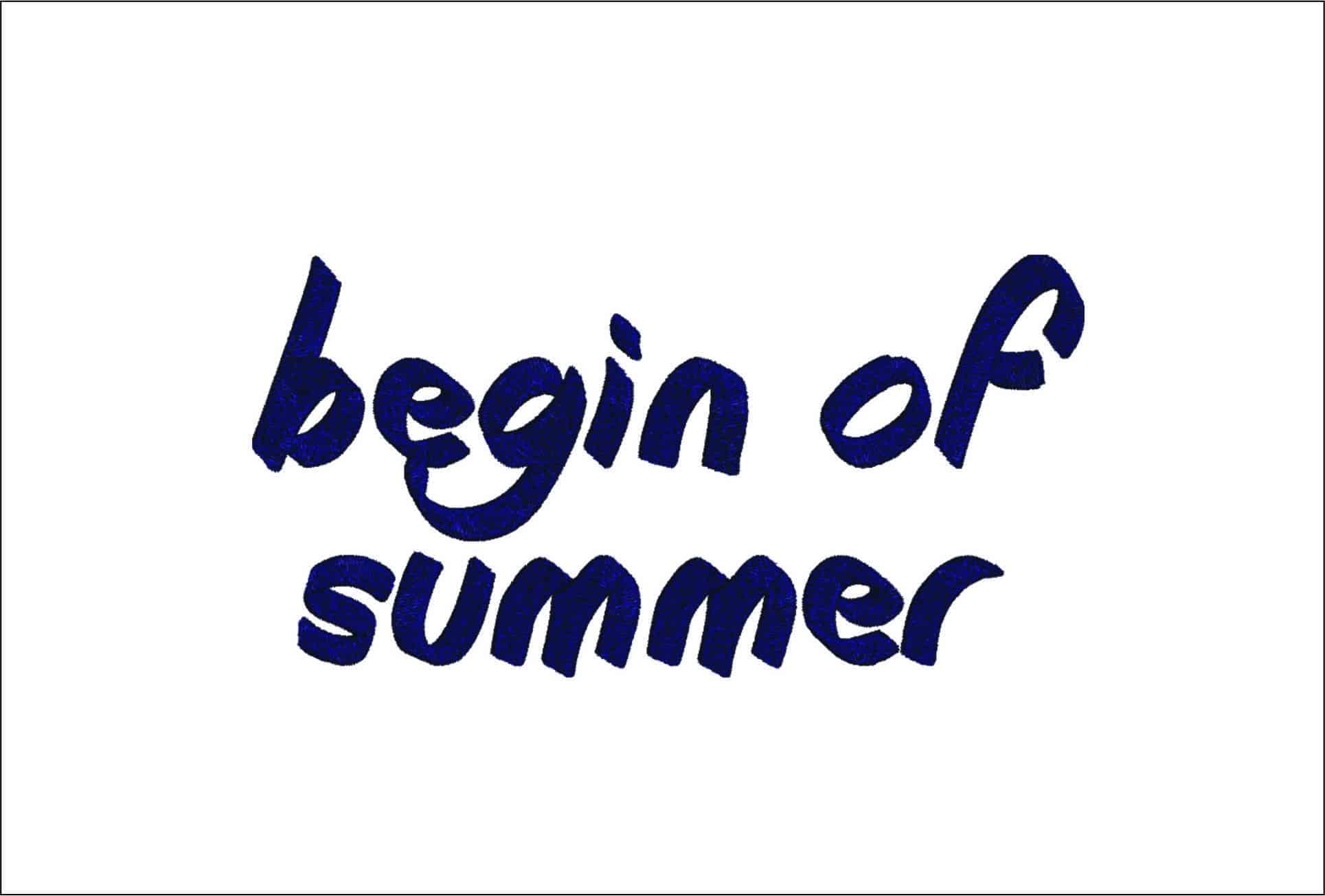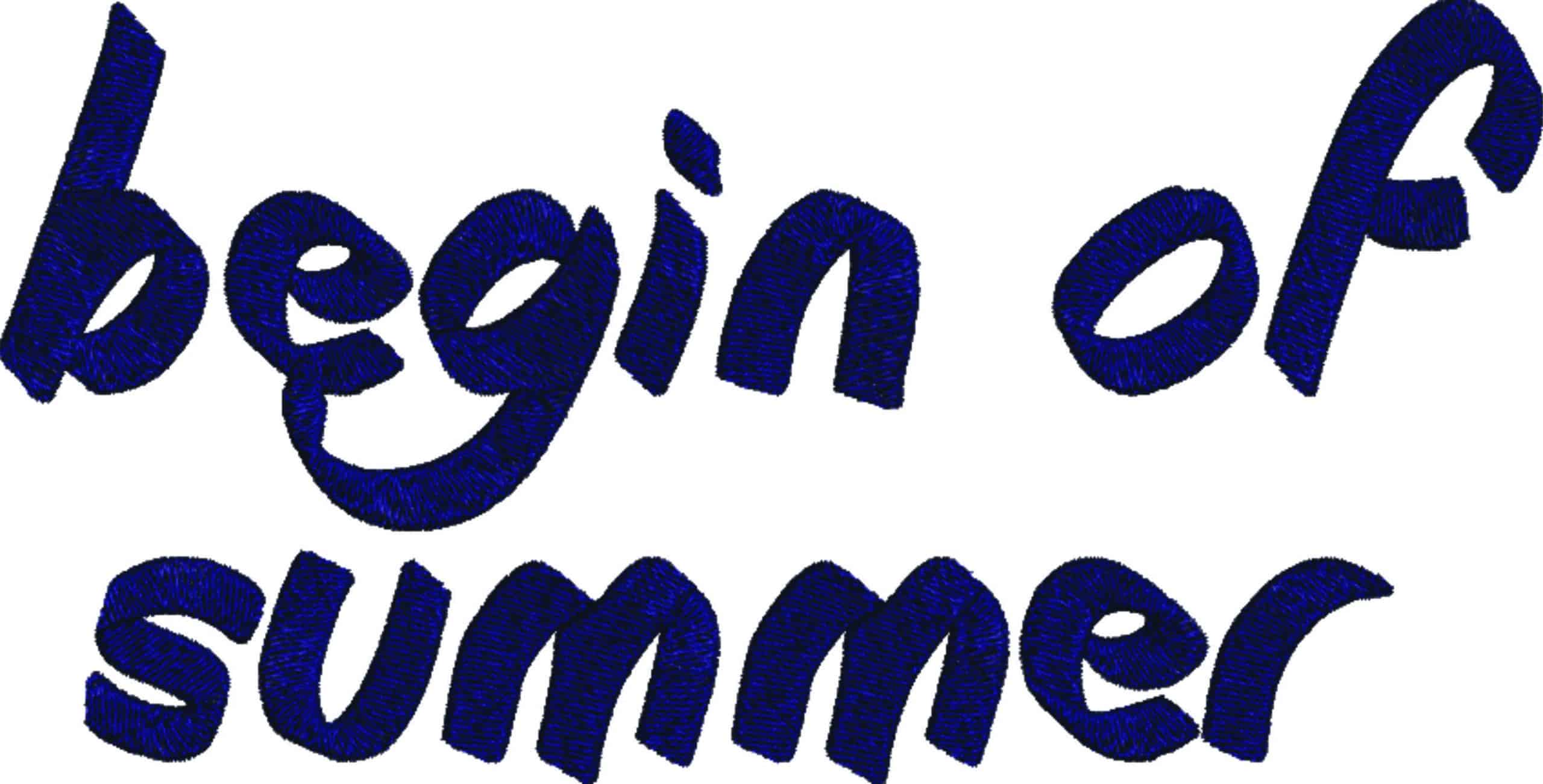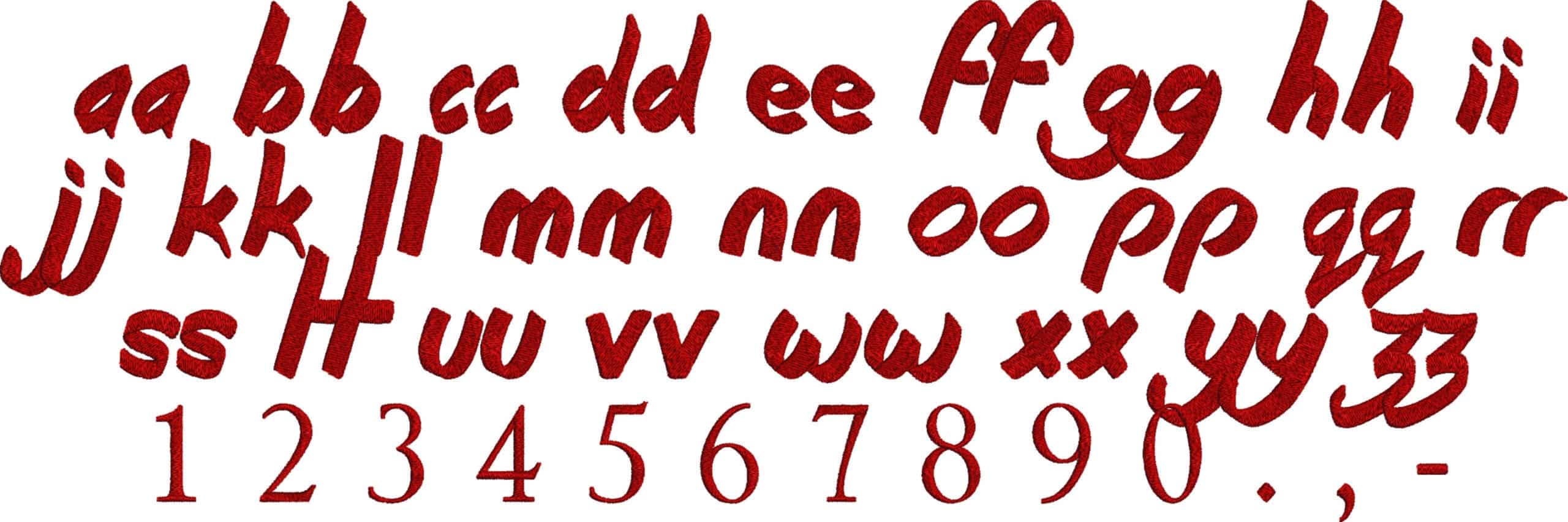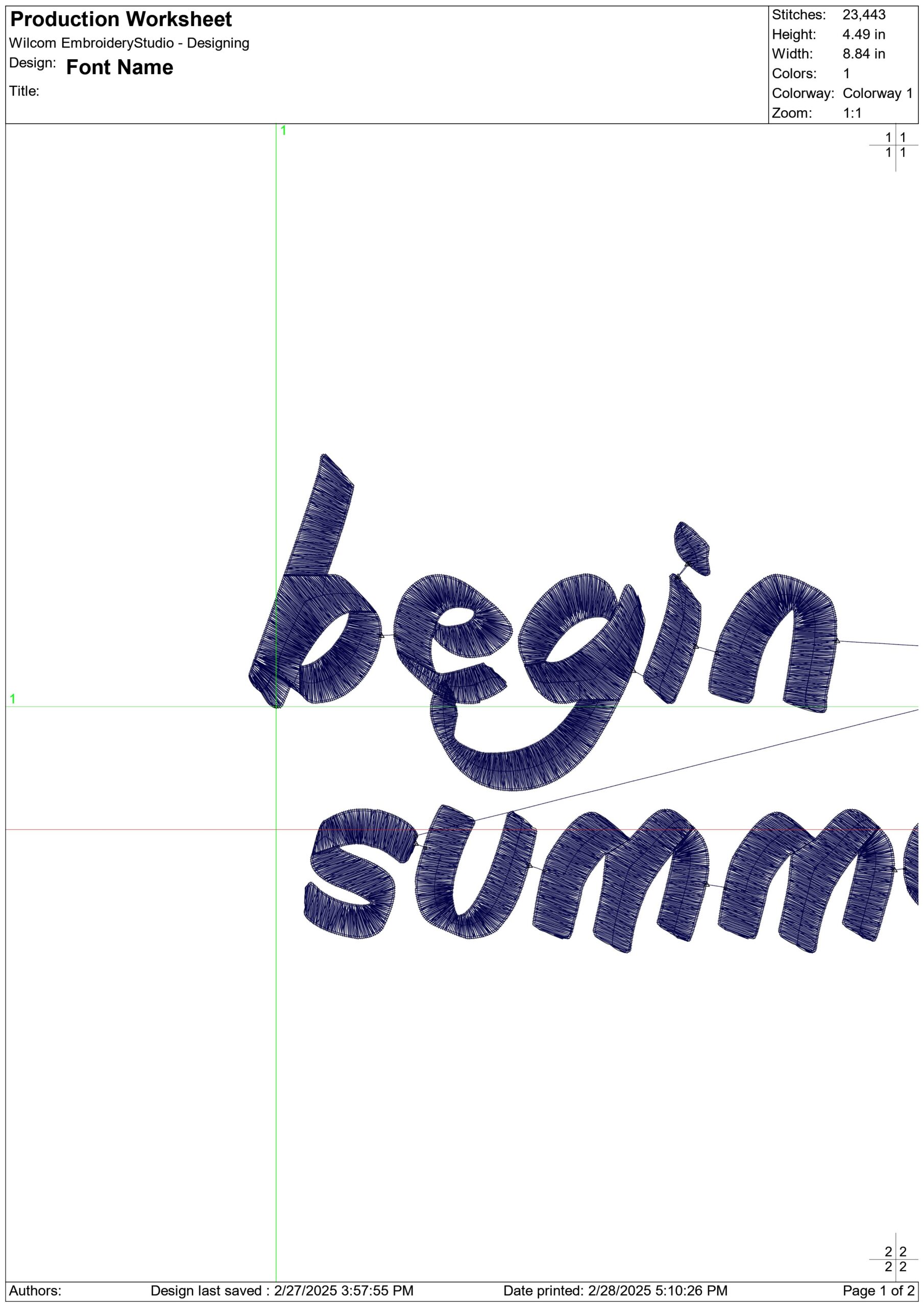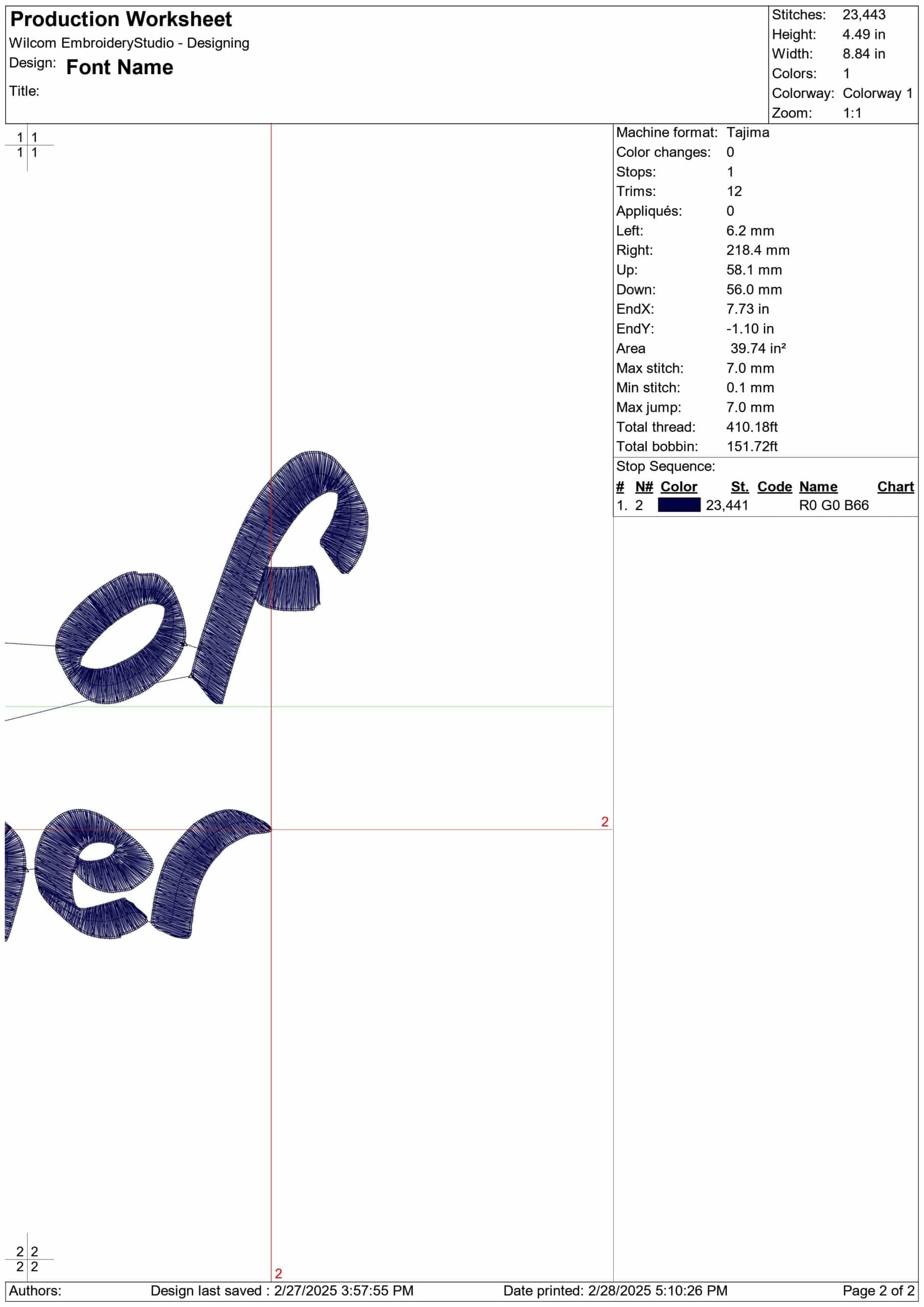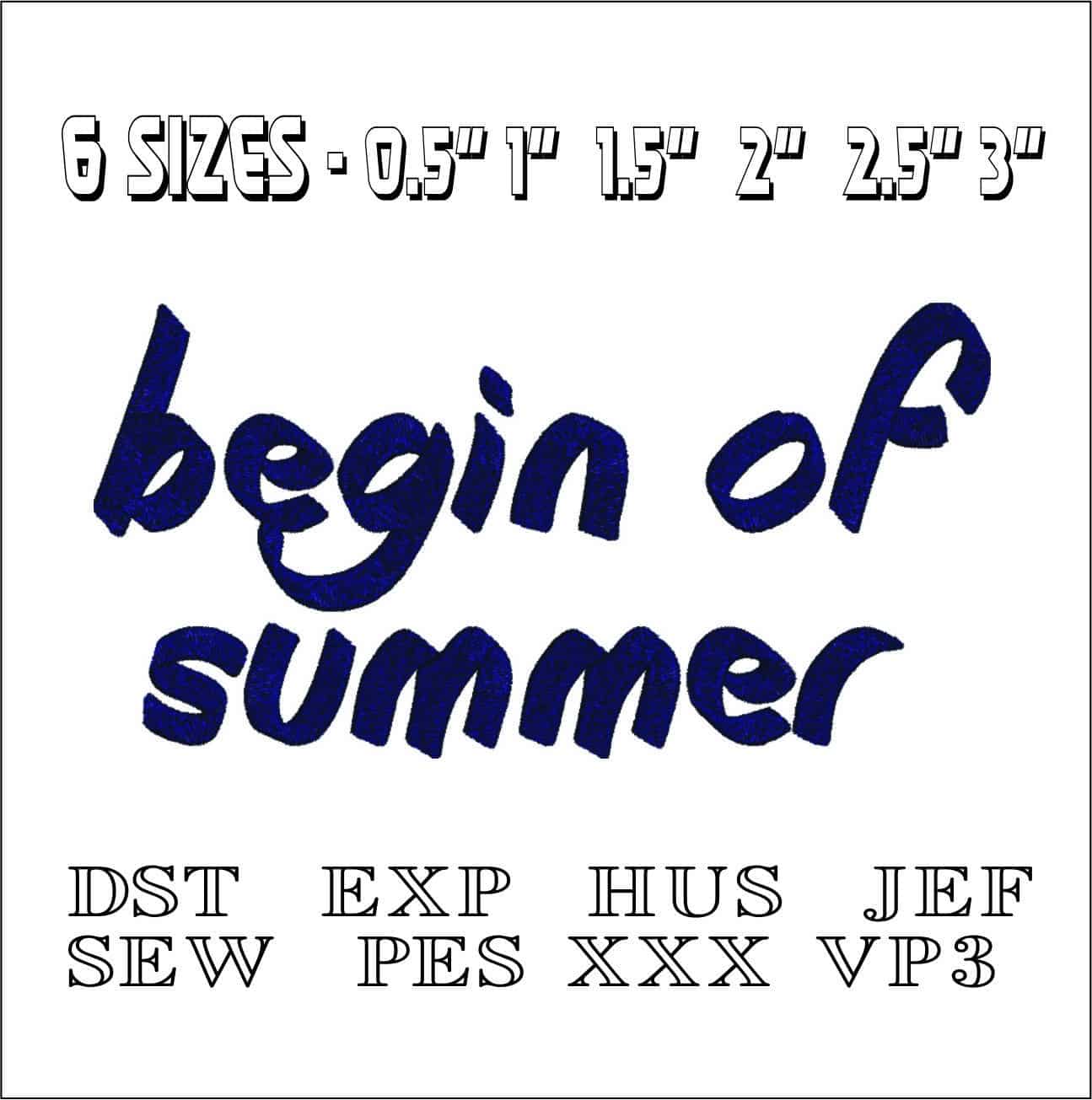
Beginning of Summer Font Embroidery Font Set - 0.5" 1" 1.5" 2" 2.5" 3", Individual Alphabet Font - instant download
This is such a great alphabet for names and sayings! Beautiful and classy! Also available in larger sizes: